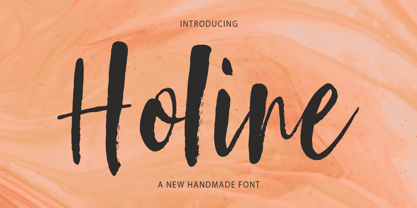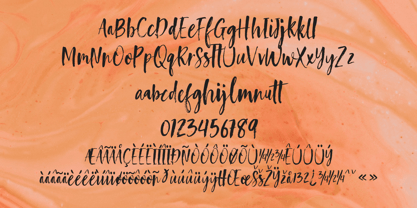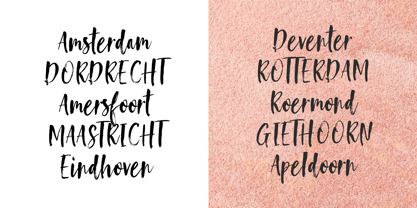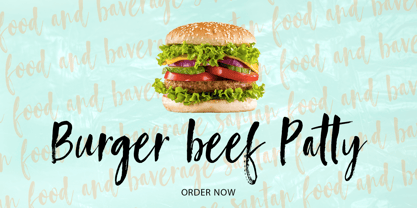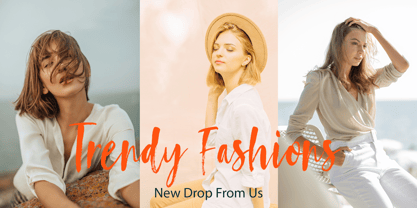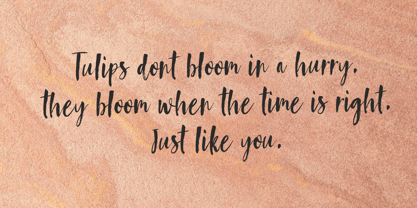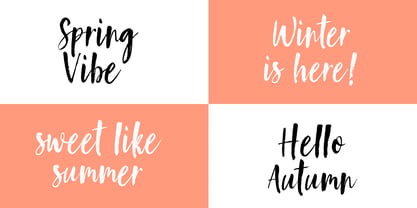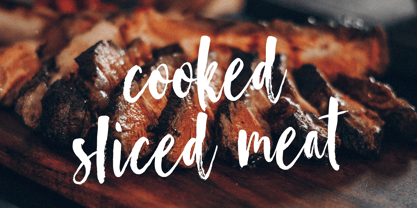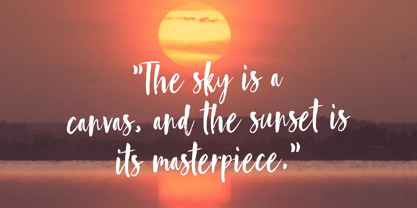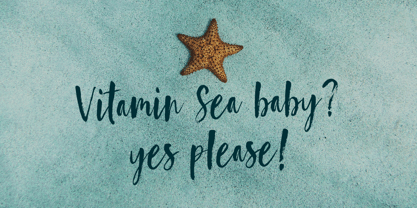
Holine
by Gatype
The Holine Font Family was designed by khaidir and published by Gatype. Holine contains 1 styles. More about this family
Holine Brush is textured brush font, contemporary approach to design, handmade natural with an irregular baseline. Holine for use in title design. Such as apparel, invitations, books tittle, stationery design, quotes, branding, logos, greeting card, t-shirt, packaging design, poster and more. Holine includes a complete set of uppercase and lowercase letters, as well as multi-language support, numbers, punctuation, ligatures.
Designers: khaidir
Foundry: Gatype